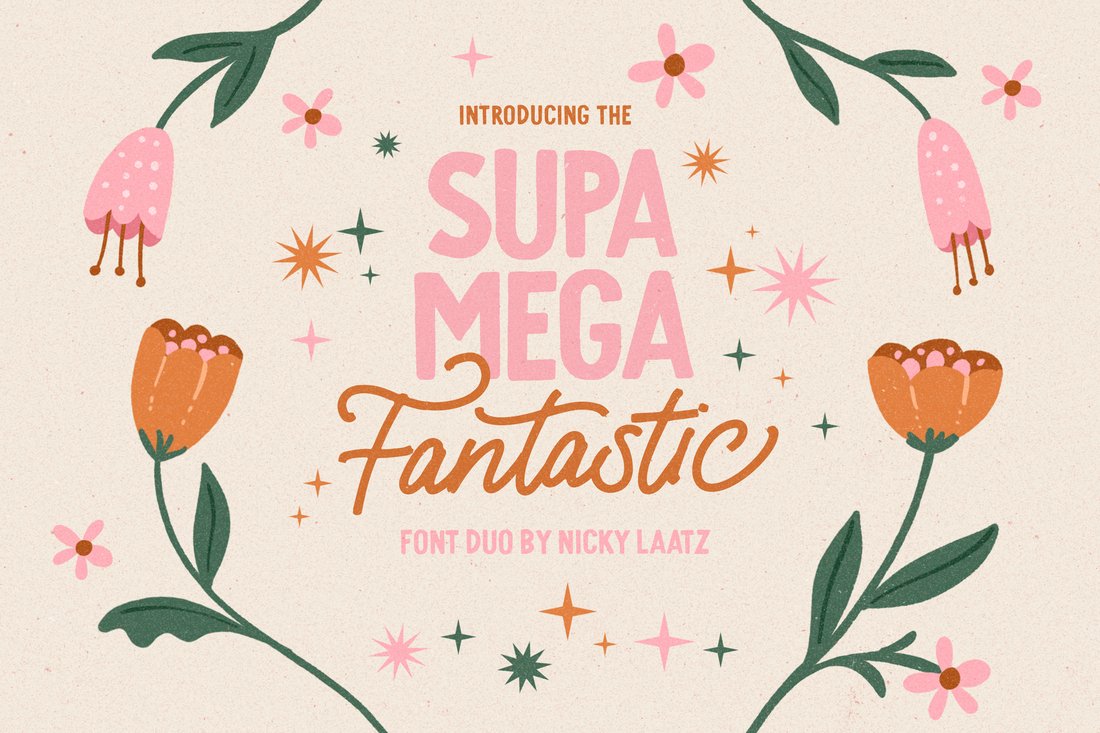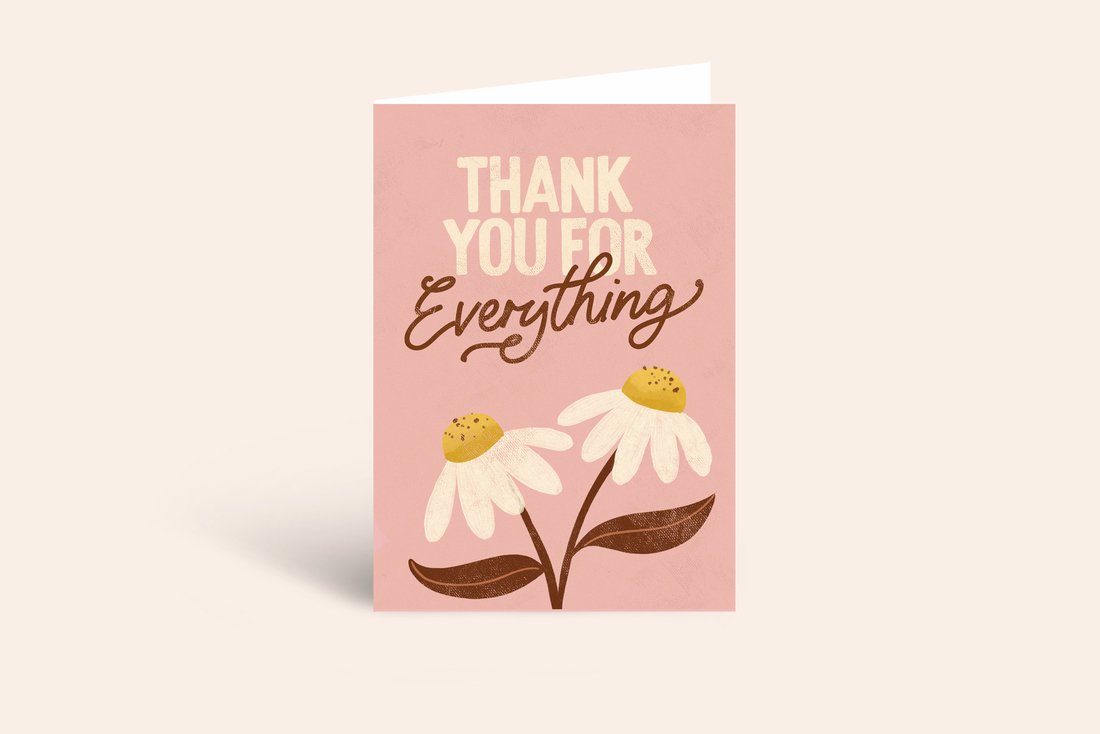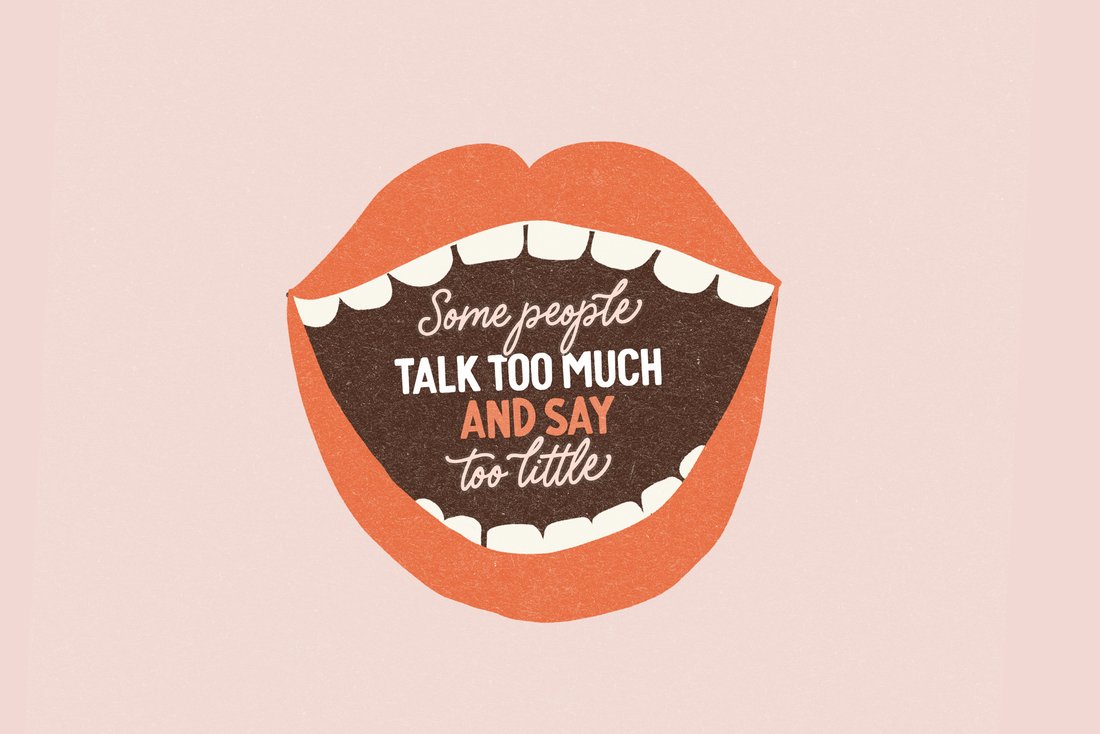
Supa Mega Fantastic Font Duo
Say hello to Supa Mega Fantastic!
A casual font duo consisting of a hand-lettered inky script and a casual inked all caps font.
The Supa Mega Fantastic Script comes with a multitude of additional characters as Opentype Alternates, to add a fancy flair to your words as you require.
All uppercase characters have a fancy alternate, and all lowercase letters have a selection of alternates for you to select from to suit your wording best.
With the Opentype extras, you can have it plain, or fancy schmancy :)
The Supa Mega Fantastic Script comes in two variants - Regular and slightly thinner. The slightly thinner version is best suited to lighter type on darker backgrounds, and the slightly thicker version is better suited to darker type on lighter backgrounds.
Perfect for typography-based branding, quotes, packaging design, greeting cards, recipe books, cosmetic brands, retro vintage badge design, creative headers and so much more.
Supa Mega Fantastic Fonts by Nicky Laatz